Great graphic design is powered by great font selection. But picking great fonts is a challenge most people. Luckily, Canva has made adding great fonts to your designs much easier. In this tutorial, our team of design experts will cover the best neon in Canva. These neon fonts are created using custom elements as opposed to the standard text effects.
What Are Neon Fonts?
Neon fonts are a type of typography that imitates the appearance of neon signs, which are made from illuminated gas-filled glass tubes. Some common characteristics of neon fonts include:
- Glowing effect: Neon fonts typically have a glowing appearance, replicating the illuminated look of real neon signs.
- Bold and vibrant colors: Neon fonts often feature bright, vivid colors, such as red, blue, green, yellow, or pink, to create the illusion of light emitted by neon tubes.
- Rounded letterforms: Many neon fonts have rounded letterforms, as the glass tubes used in actual neon signs are more easily bent into curves rather than sharp angles. This results in a smoother, more fluid look.
- Continuous stroke: The letters in neon fonts often have a continuous stroke, mimicking the continuous glass tube in neon signs. This can create a sense of connectedness between characters.
- Varied stroke width: Some neon fonts incorporate varied stroke widths to emulate the fluctuating brightness of neon lights and to add depth and dimension to the text.
- Shadow and highlights: To enhance the glowing effect, neon fonts often include shadows and highlights that make the text appear more three-dimensional and create the illusion of depth.
- Handwritten or script style: Many neon fonts have a handwritten or script appearance, reflecting the craftsmanship involved in creating real neon signs.
- Distinctive or retro aesthetic: Neon fonts often evoke a distinctive, nostalgic, or retro feel, as neon signs were especially popular during the mid-20th century.
- Decorative elements: Some neon fonts incorporate additional decorative elements like stars, arrows, or underlines, which are common features of neon signs.
- Layered designs: Some neon fonts come with multiple layers, such as an outline, glow, or shadow layer, which can be combined to create different visual effects and customize the overall appearance.
How to Use Canva Elements to Produce a Custom Font
Canva’s standard fonts can simulate a number of effects and styles. But for the purposes of creating a font that truly appears to be neon, we will be using custom elements from Canva to find unique letterforms and assemble the letters as a design that mimics text.
3. Select Neon Letters Manually to Form Desired Text
You will see a number of options for neon styled letters, which can be used to form neon text.
You can click on any of the neon letters to add them to your design:
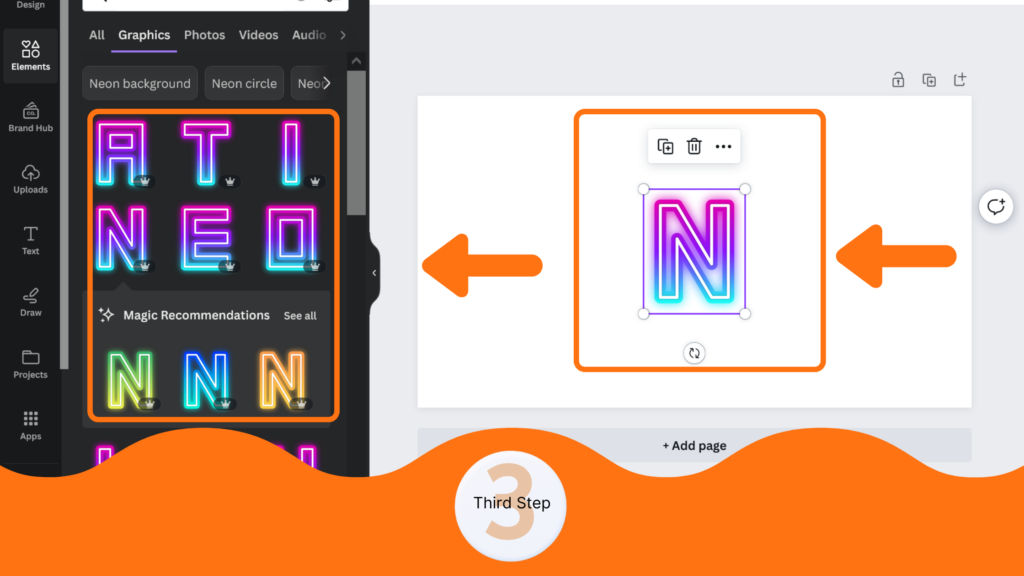
Canva Neon Font Brand Designer Codes
You could look through all these neon letters to find the ideal style for your designs. Alternatively, I’ve provided several Canva designer codes below. By searching these exact phrases in Canva (under graphics), you will see the designs from each specific designer.
I’ve picked three of the most popular, and included the designer’s handle and a sample of the neon fonts that they offer, to help you create neon fonts even faster!
Example 1: Designer Ken111
Canva Search Phrase: “@ken111 neon letters”
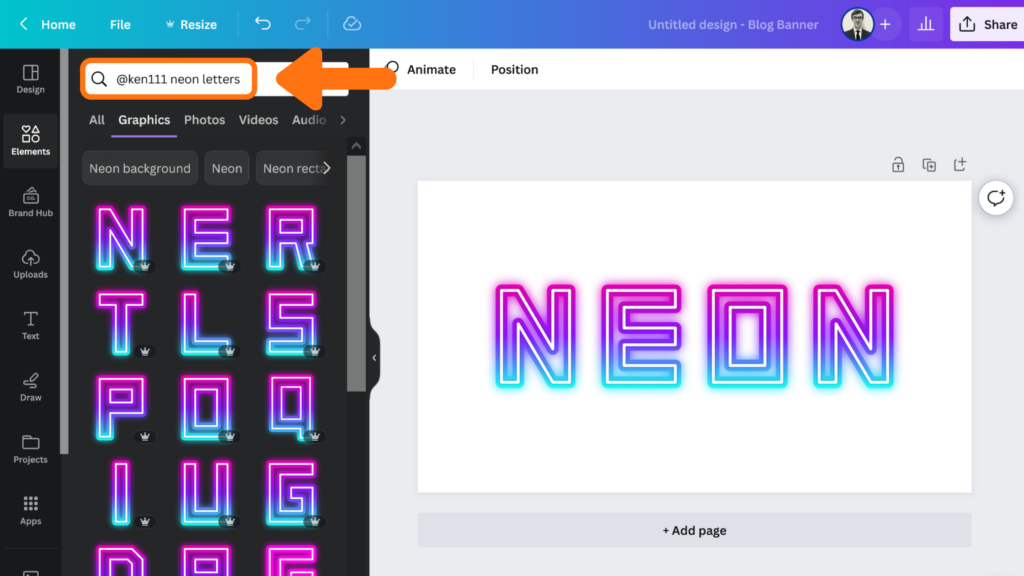
Example 2: Designer ArtFXDesign
Canva Search Phrase: “@artfxdesign neon letters”
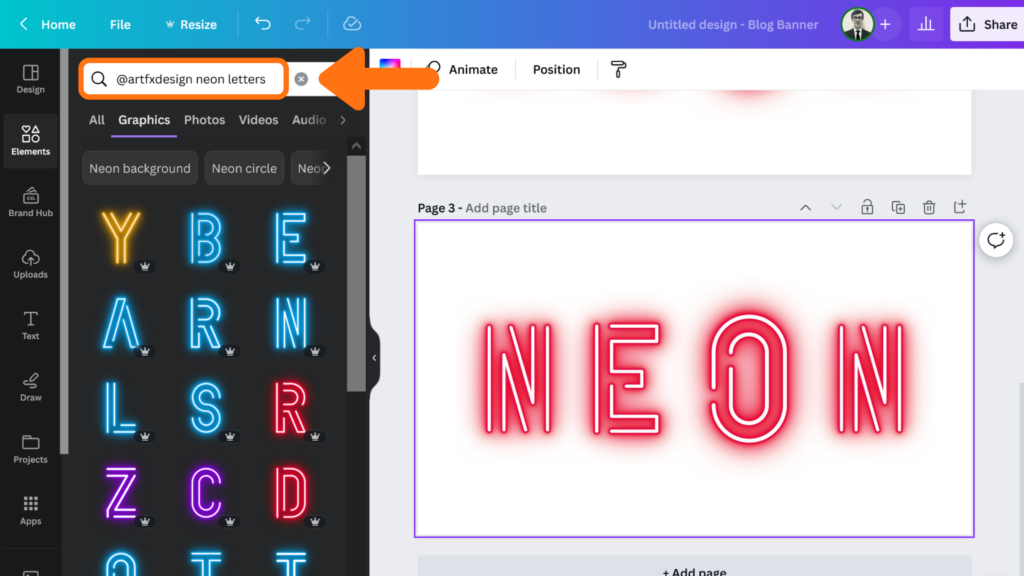
Example 3. Designer SDesign1999
Canva Search Phrase: “@sdesign1999 neon letters”
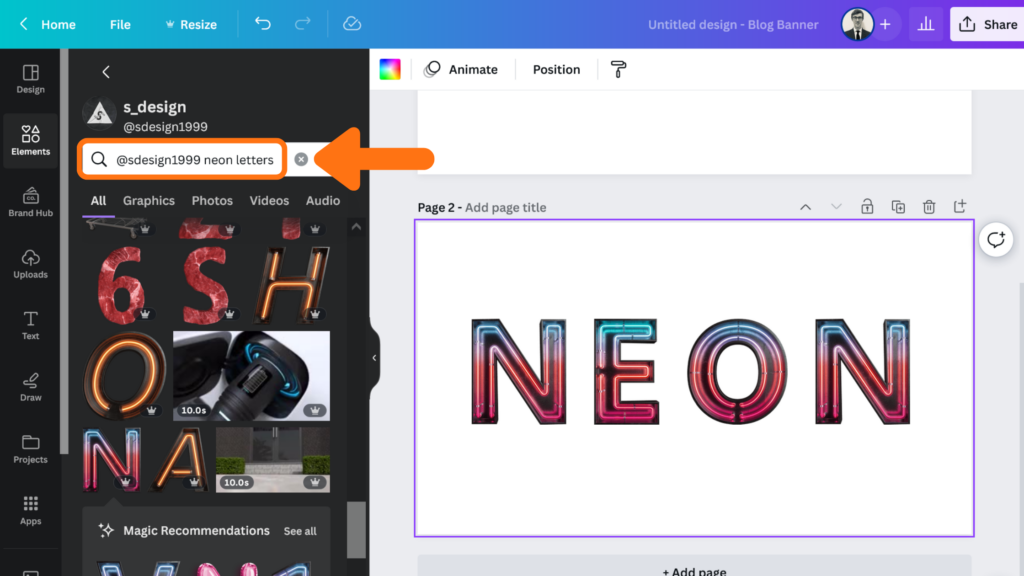
Conclusion